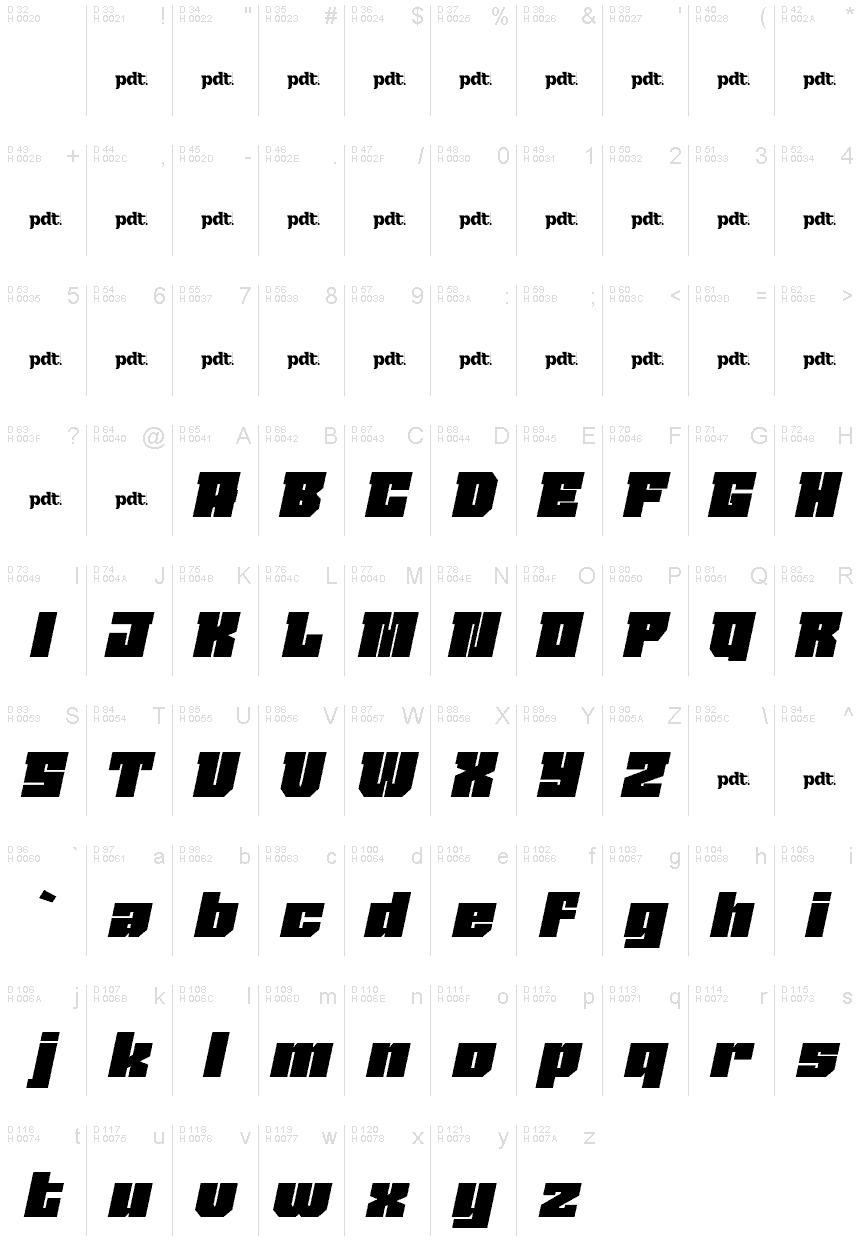
AMOONK Slant
Amoonk Slant font by productype.com stands out as an expanded bold techno display free font that features a retro and geometric aesthetic. Full of angular and sharp edges, it showcases an energetic style with a subtle yet noticeable futuristic feel. This is combined with connected letter dots and a versatile range of stylistic uppercase options.
Use this typeface to highlight print or digital promotional materials like poster titles, magazine covers, advertising posters, e-books headers, banners, CDs among many other options. Branding canalso benefit as a result from Amoonk Slant’s unique identity generation capabilities especially for logos where the provided logo templates can work.